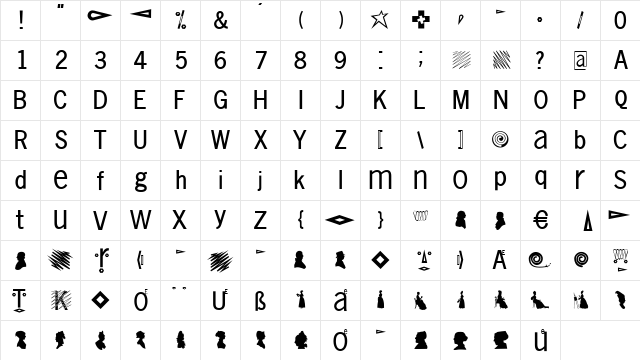
FullsizeSans Regular
Design Context for FullsizeSans Typeface
FullsizeSans is a composed and adaptable typeface that performs quietly and consistently across a wide range of design contexts.